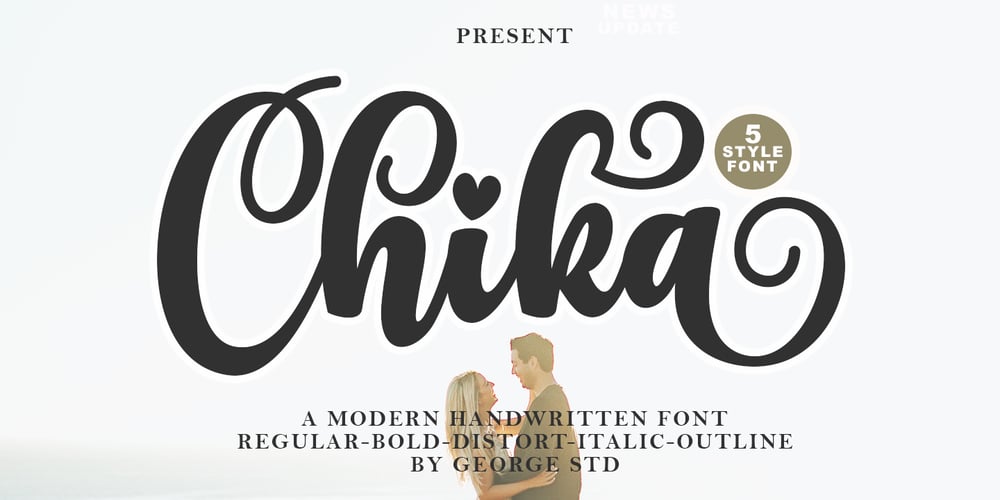
Chika
Chika font
Chika Font Family was designed by Cut Kurniyawati Rahim and published by George Studio. Chika contains 5 styles and family package options. Chika is a handwritten modern script font with a bold style and modern look.This font is suitable for logos, branding, product design, product packaging, photography, watermarks, social media posts, advertisements, invitations, stationery, labels, logos, magazines, books, greeting/wedding cards, fashion, make up, and more. other.What’s Included:Uppercase & lowercaseNumbers and punctuationMultilingual supportfastenerAlternativeWashingWorks on PC & MacSimple installationAccessible in Adobe Illustrator, Adobe Photoshop, Adobe InDesign, even works in Microsoft Word.PUA Coded Characters – Fully accessible without additional design software.Thank you for your purchase!Hope you enjoy with our fonts!